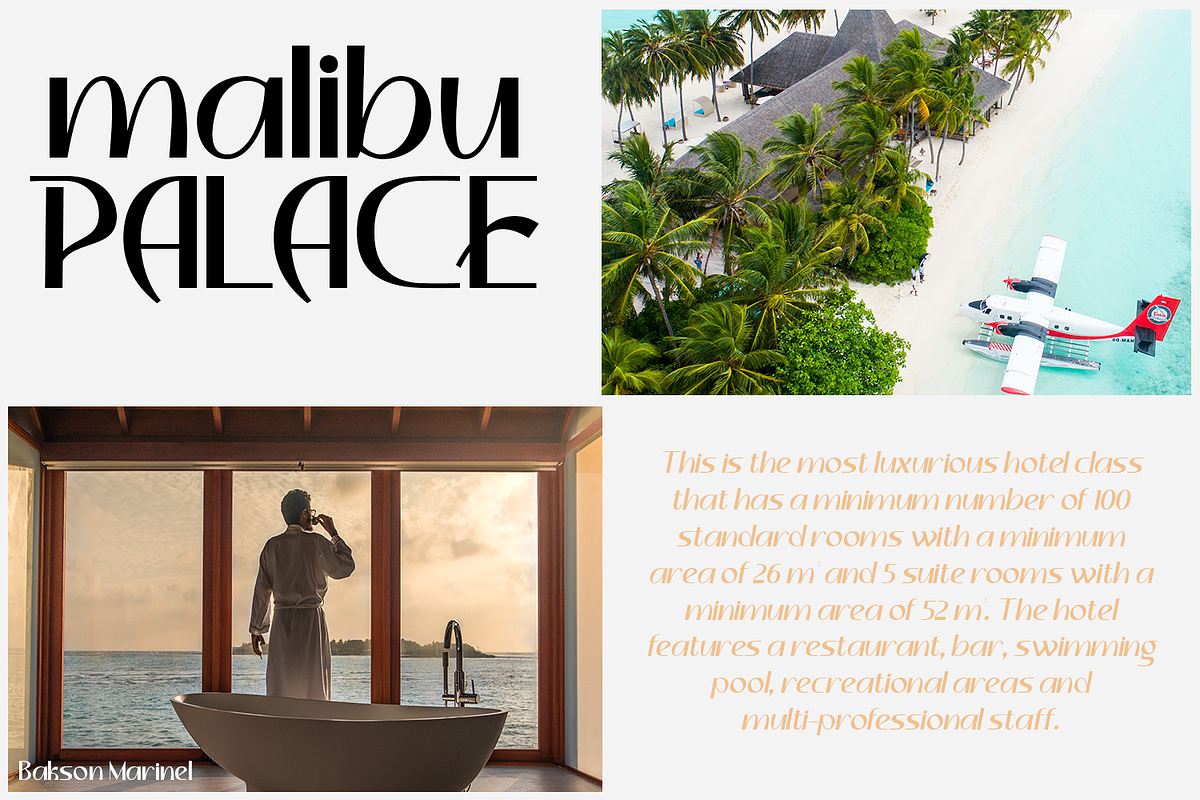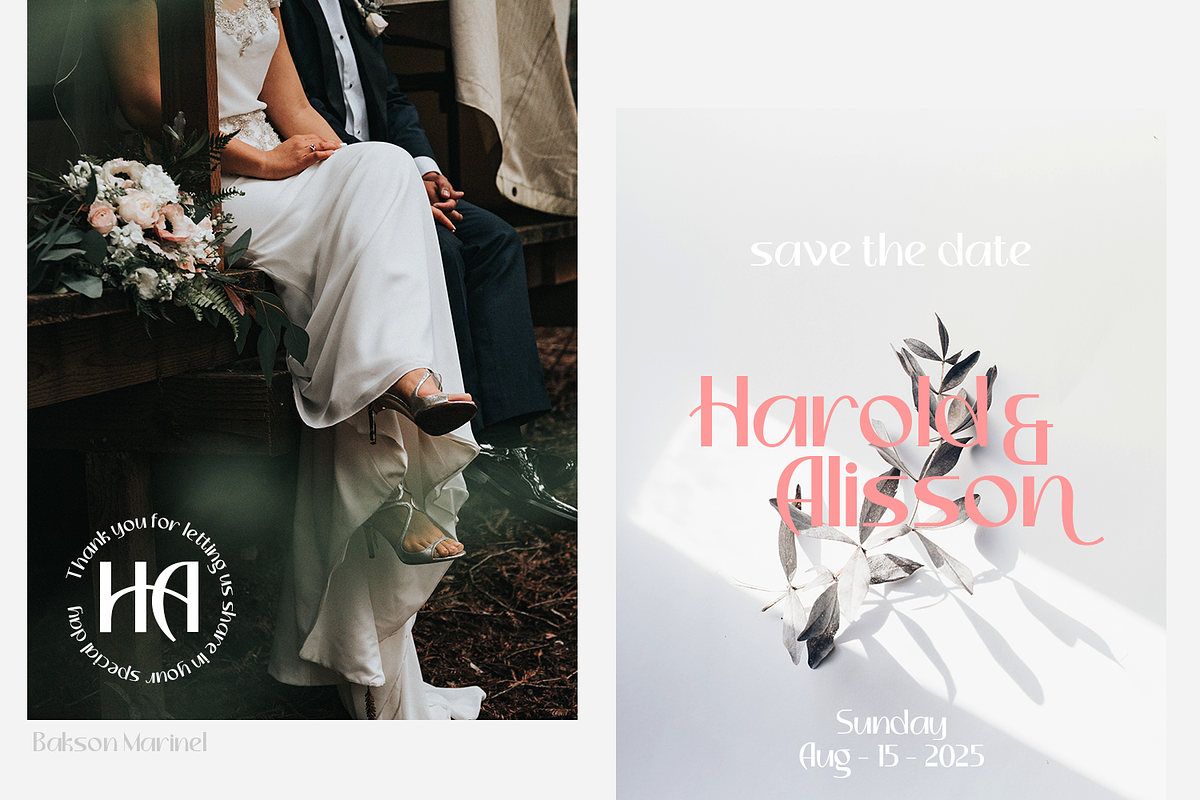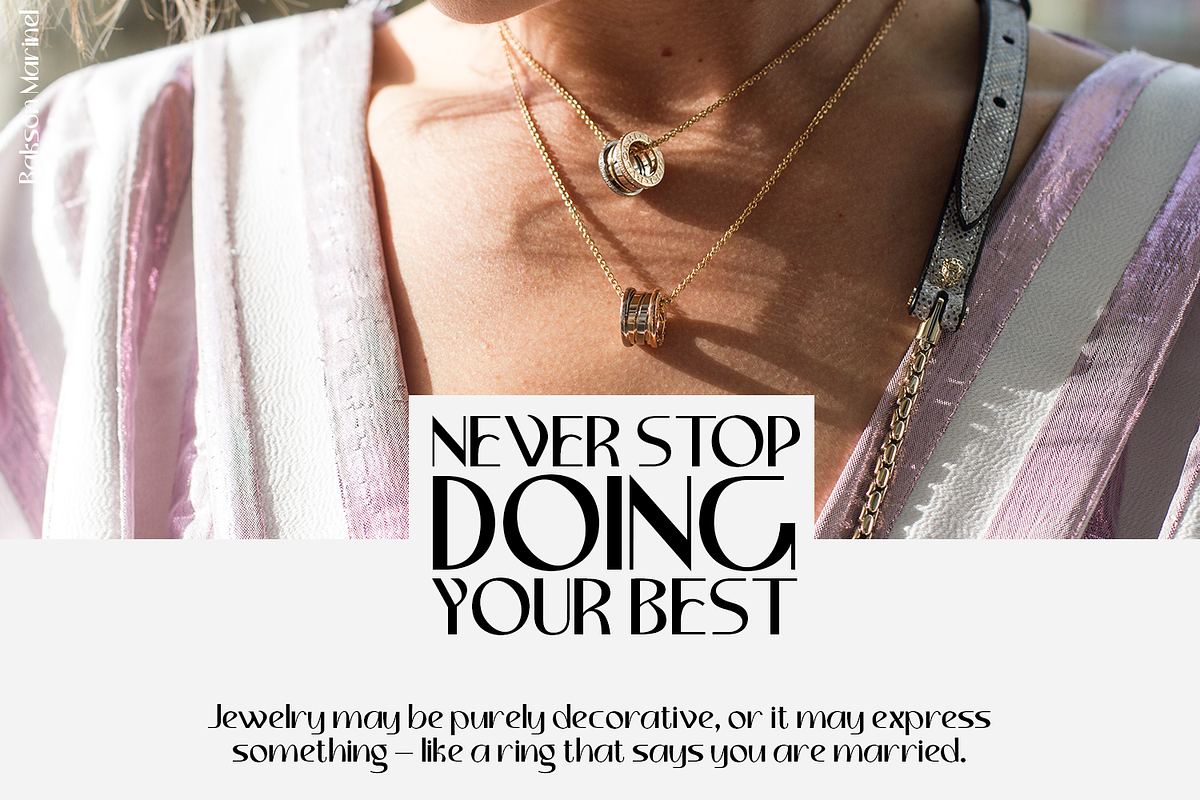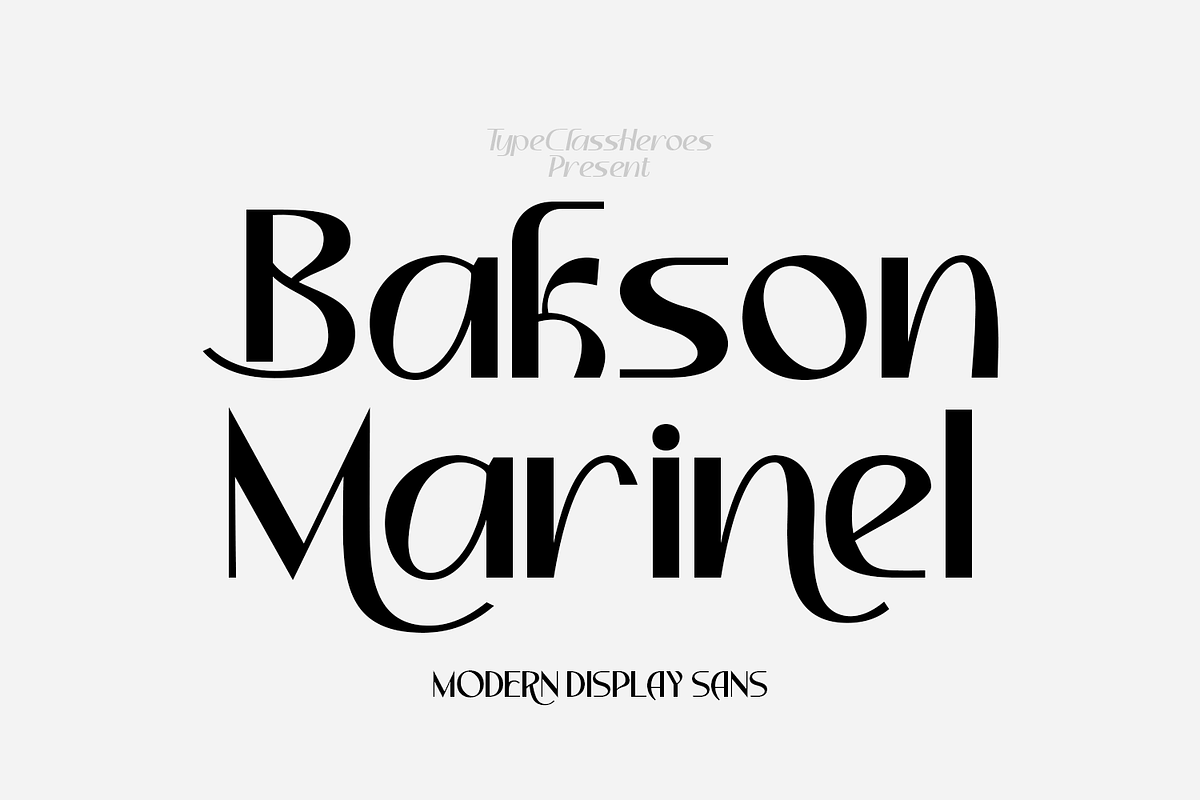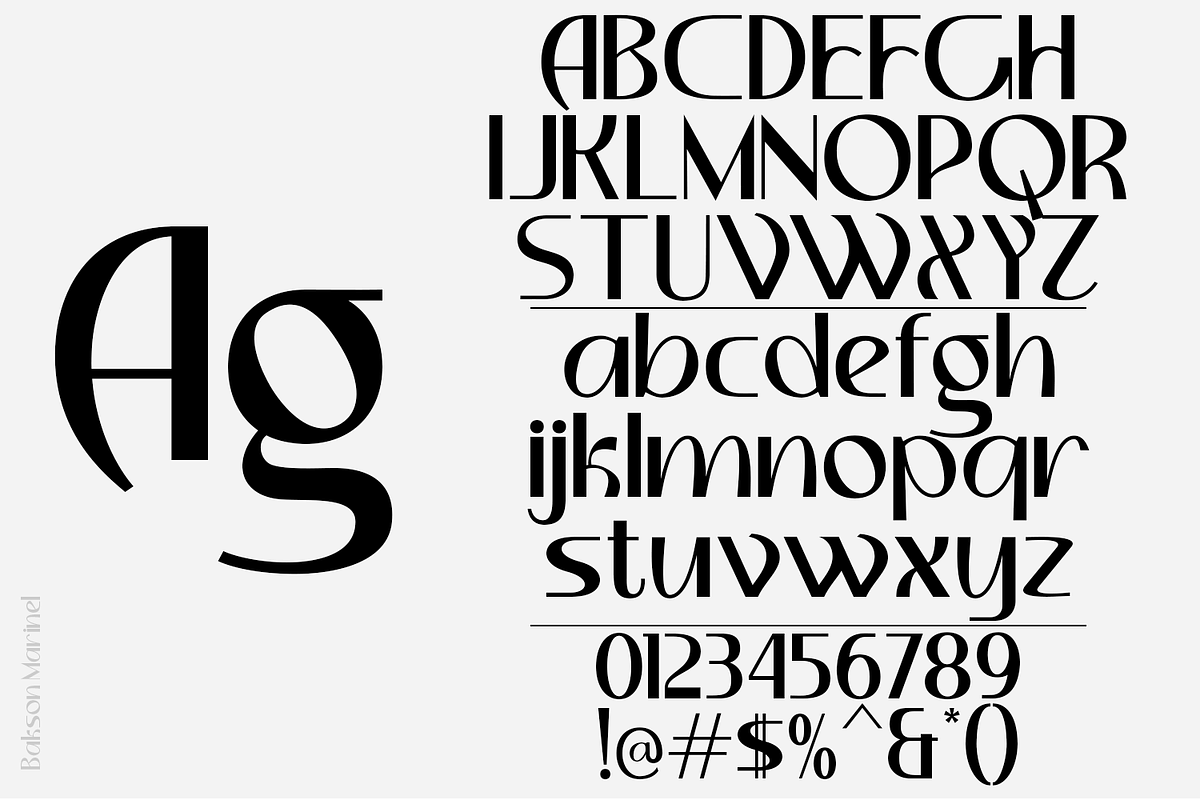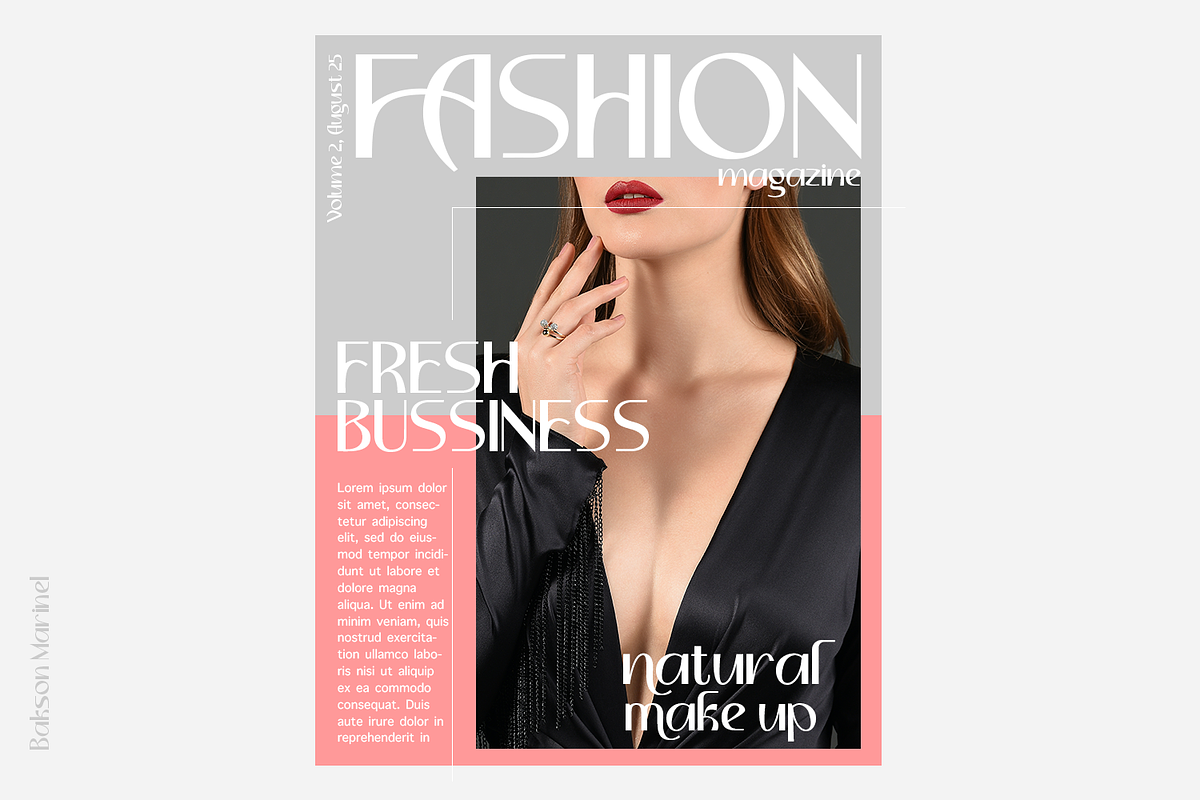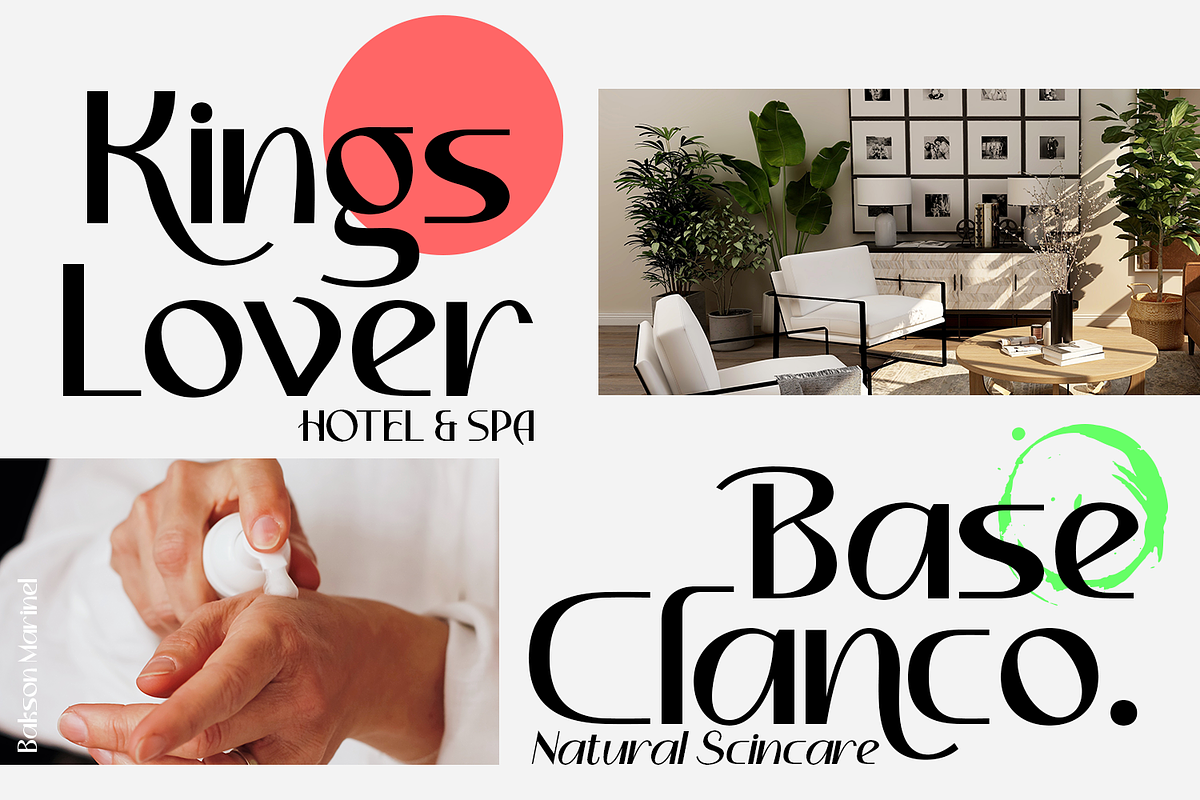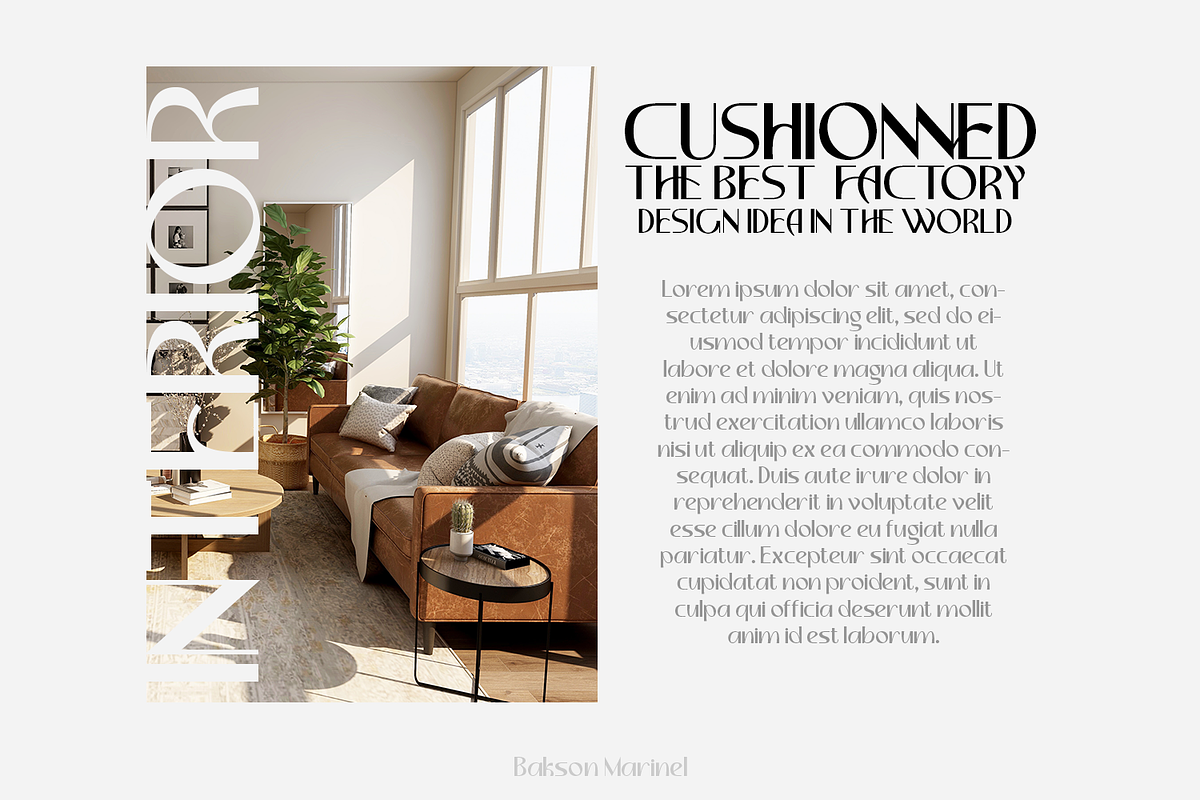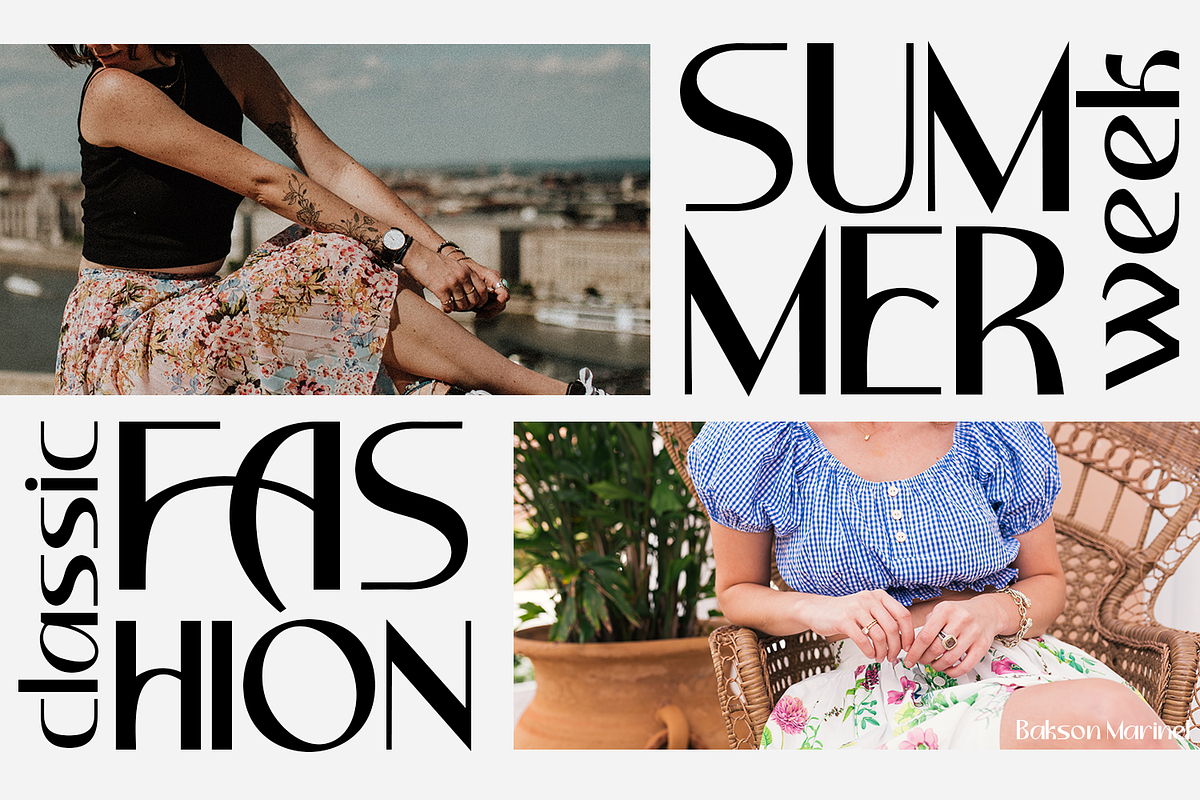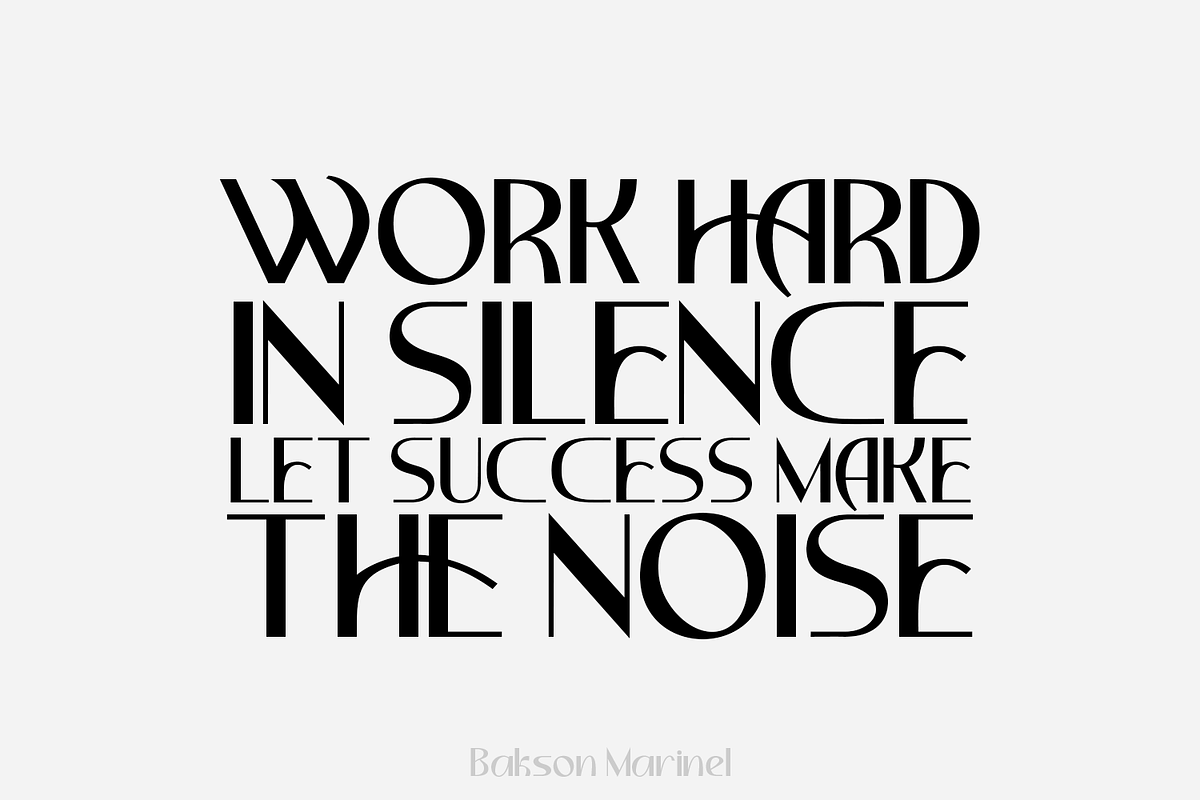
Bakson Marinel - Modern Display Sans
Bakson Marinel is a modern display sans, simplistic, high-contrast sans that is at home in high-end fashion and cultural environments that you can explore and combine. use this font for any branding, product packaging, invitation, fashion, label, poster, logo etc.